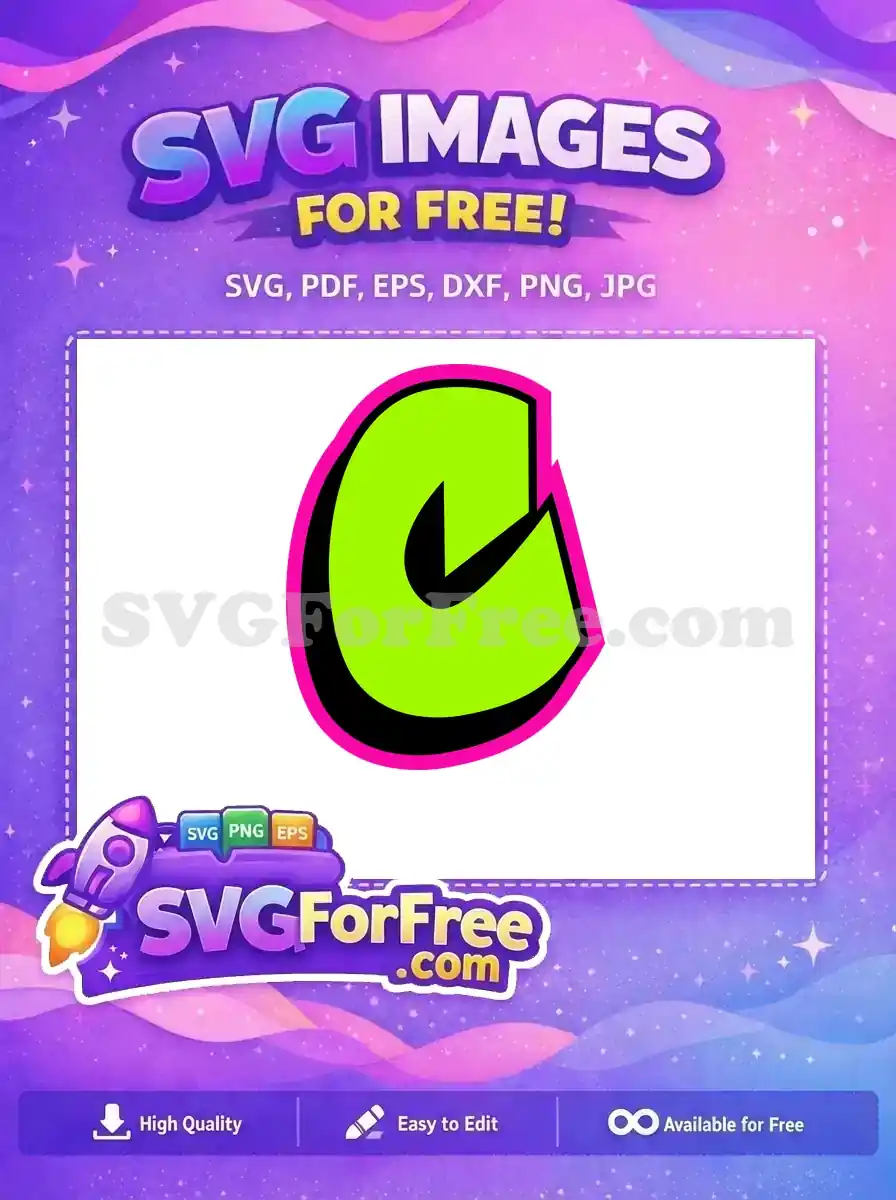
Lime green letter C accented with a hot pink outline and black shadow, offered as a vibrant free design.
Free Graffiti Font Bold Free Letter C Fonts Free SVG